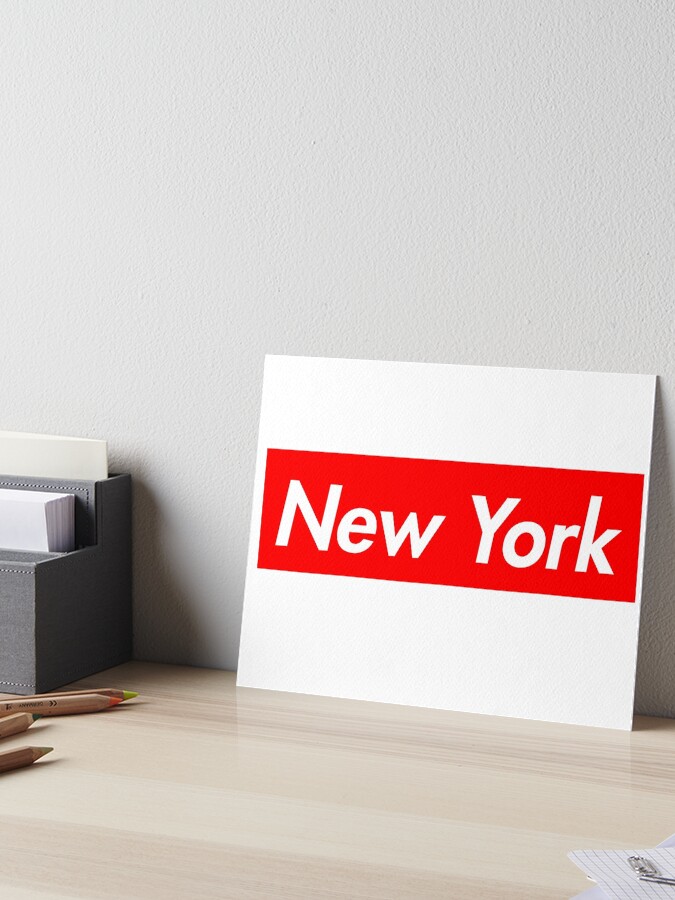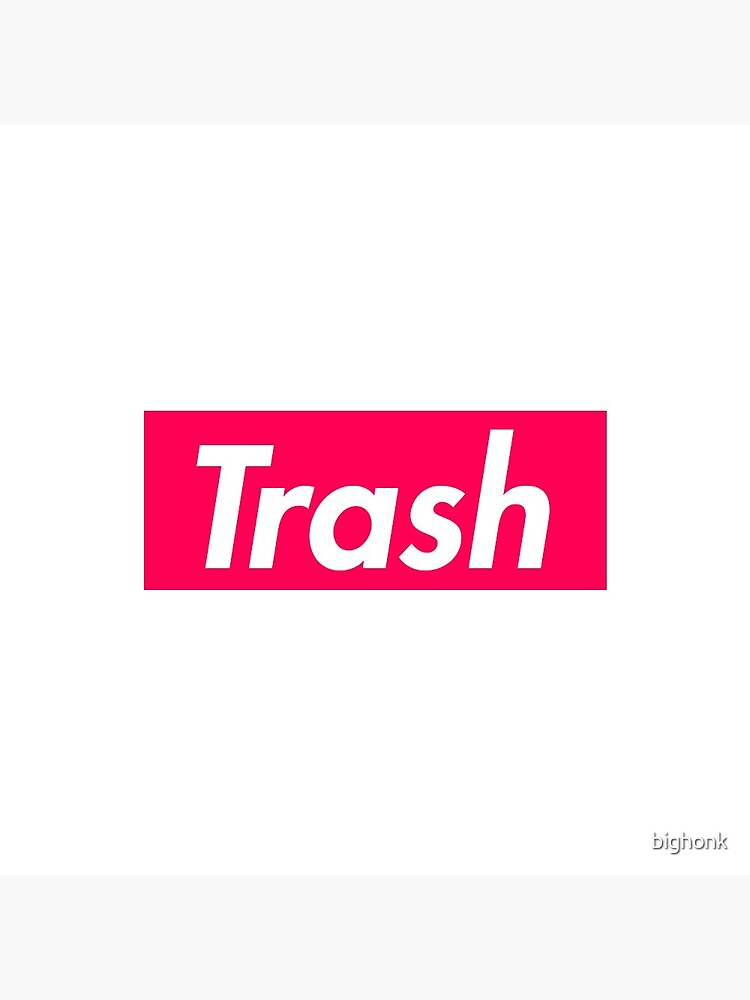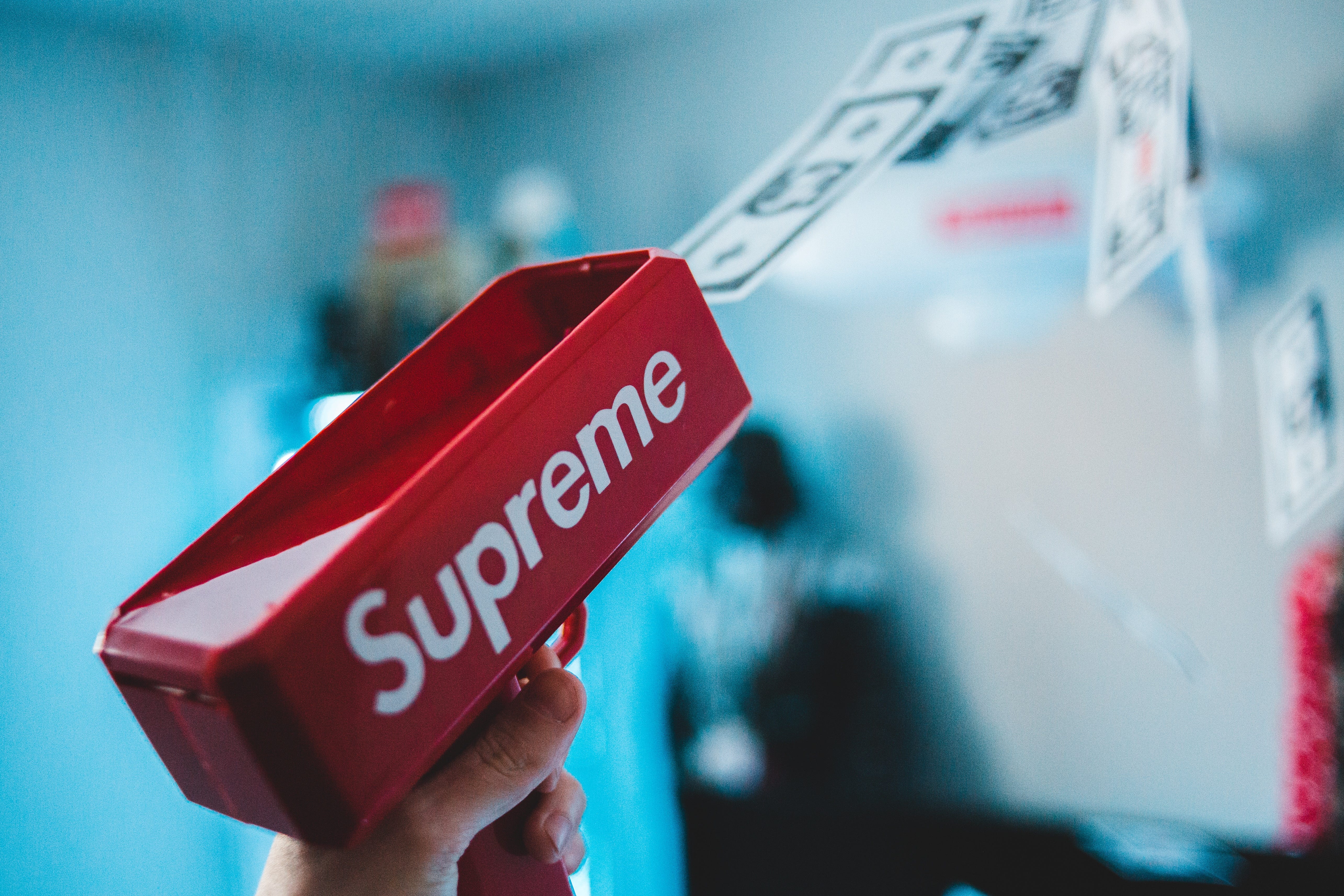
Supreme Brand Font Style
This is the font which is used in the famous fashion brand supreme located in new york city.
Supreme brand font style. This font belongs to typeface font family. Supreme font and logo supreme font free supreme font the fonts magazine from the name to box logo war. Supreme font and logo supreme font free supreme font the fonts magazine from the name to box logo war over supreme fashion law.
The brand caters to the downtown culture like skateboarding hip hop punk rock etc. Supreme font family is well known and easy to understand typeface all the times. Supreme brand font style.
The text lettering employing for the supreme logo is futura bold italic font. Futura is available as a commercial typeface and you can download and purchase the font here. Supreme is a clothing brand founded in new york city.
Fake designer supreme brand name woven label for clothing view supreme font and logo supreme font free from the name to box logo war over supreme fashion law supreme font the fonts magazine. The logo of supreme is simply its logotype portrayed in white on a red background. The font used for its logotype is similar to futura bold italic.